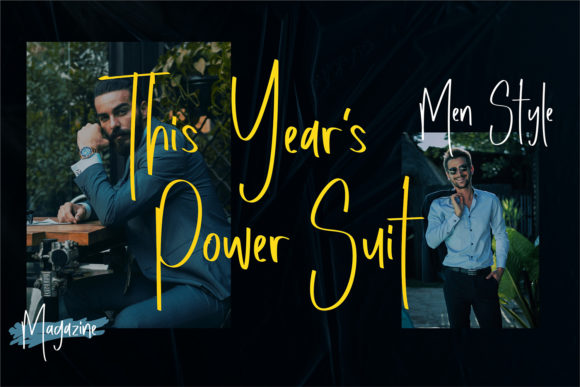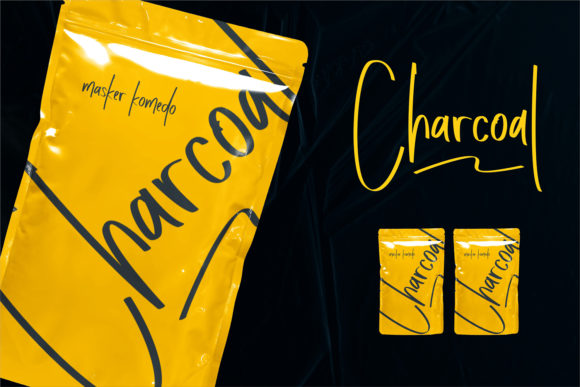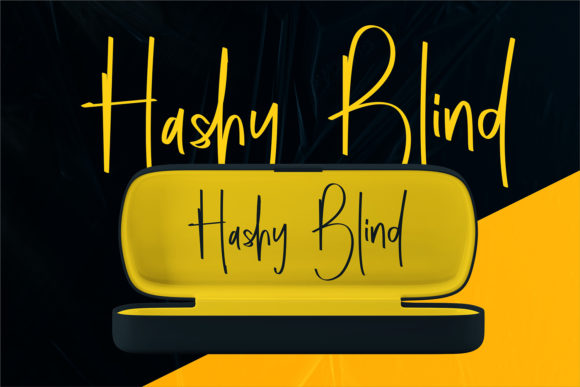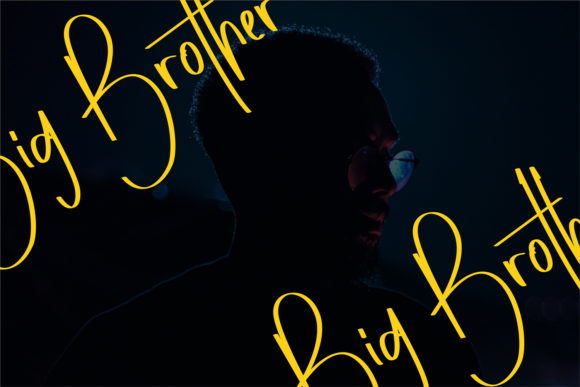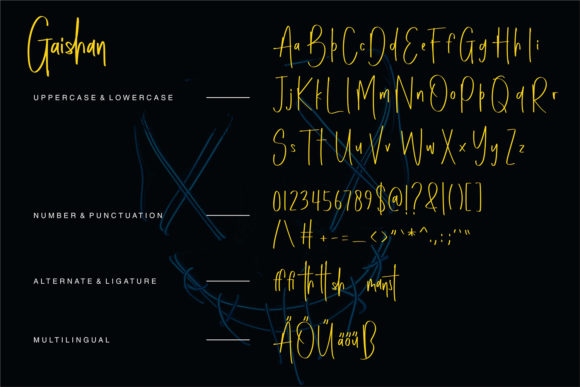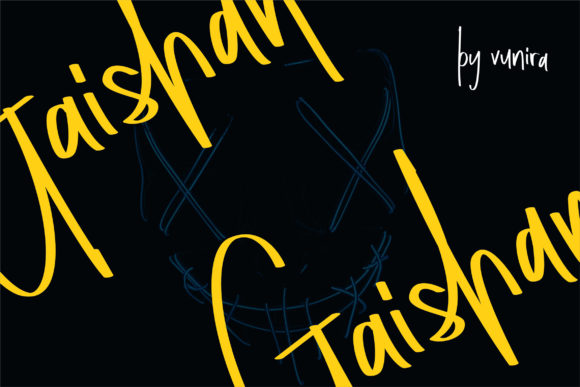
Discover the Elegance of Gaishan Font: A Perfect Blend of Classic and Modern
In the world of typography, few fonts manage to strike a balance between elegance and modernity. Gaishan Font is one such exceptional typeface that effortlessly combines classy calligraphic influences with a fresh, contemporary feel. This versatility makes Gaishan an ideal choice for a wide range of creative projects, from letterheads and titles to stationery and more. In this article, we’ll delve into the unique features of Gaishan Font and explore how it can elevate your design work.
The Unique Charm of Gaishan Font
Gaishan Font is a handwritten typeface that stands out for its simplicity and elegance. At its core, Gaishan is designed to bring a touch of sophistication to any design project. Its calligraphic roots are evident in the fluid, graceful lines that characterize each letter. However, unlike traditional calligraphic fonts, Gaishan has a modern twist that makes it feel fresh and relevant.
Key Features of Gaishan Font
• Elegant and Refined: Gaishan’s design is marked by its elegant and refined appearance. The font features smooth, flowing lines that give it a luxurious feel, perfect for projects that require a touch of sophistication.
• Versatile: One of the standout features of Gaishan Font is its versatility. It can be used in a variety of contexts, from formal letterheads and business cards to more creative projects like stationery and titles.
• Contemporary and Fresh: Despite its calligraphic influences, Gaishan has a distinctly modern feel. This makes it an excellent choice for designers looking for a font that feels current and on-trend.
• Easy to Read: Gaishan’s clear and well-defined letterforms ensure that it remains highly legible, even at smaller sizes. This is crucial for designs where readability is key.
Uses of Gaishan Font
The versatility of Gaishan Font makes it suitable for a wide range of applications. Here are some of the ways you can use Gaishan to enhance your designs:
• Letterheads and Business Cards: Add a touch of elegance to your business correspondence with Gaishan. Its refined appearance makes it perfect for professional settings.
• Stationery: Whether you’re designing personal stationery or branded materials for a business, Gaishan’s elegant and modern look is sure to impress.
• Titles and Headings: Use Gaishan to create eye-catching titles and headings for your website, blog, or marketing materials. Its unique charm will help your content stand out.
• Packaging: For brands looking to add a personal touch to their packaging, Gaishan can be a great choice. Its elegant feel can elevate product labels and packaging designs.
Tips for Using Gaishan Font Effectively
To make the most of Gaishan Font, consider the following tips:
• Pair with Complementary Fonts: While Gaishan is beautiful on its own, it can be even more striking when paired with complementary fonts. Look for sans-serif fonts for contrast.
• Adjust Letter Spacing: For optimal readability, pay attention to letter spacing. Gaishan looks best with slightly increased spacing, especially in larger blocks of text.
• Use for Headers and Accents: Gaishan is perfect for headers and accent text. Use it sparingly to draw attention to key information or to add a decorative touch.
Gaishan Font is a truly outstanding handwritten typeface that brings elegance and modernity to the world of typography. Its versatility, combined with its classy calligraphic influences, makes it an excellent choice for a wide range of design projects. Whether you’re a designer looking for a sophisticated font for a client’s branding or a crafter seeking a beautiful typeface for personal projects, Gaishan is sure to meet your needs. With its unique charm and wide range of applications, Gaishan Font is a valuable addition to any designer’s toolkit.